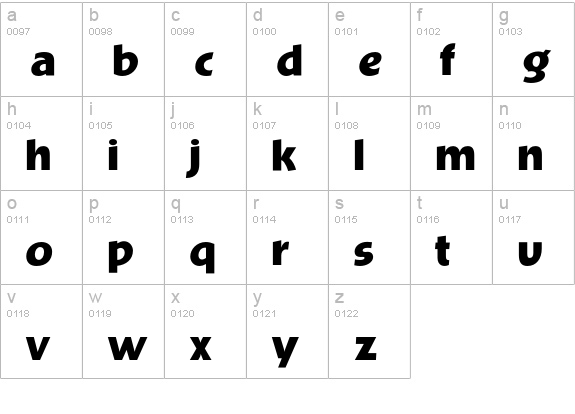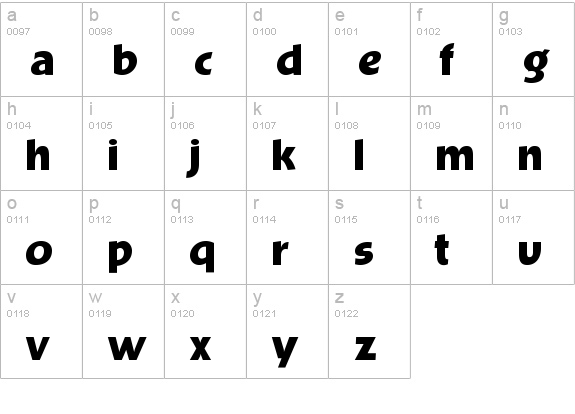
OPTIBevis-Bold Font Details
OPTIBevis-Bold is a strong, high-contrast variant in the OPTIBevis typeface family \xE2\x80\x94 well suited to headlines, attention-grabbing titles, and strong calls-to-action.
OPTIBevis-Bold is a striking and modern font that exudes confidence and style. With its bold and impactful design, this typeface is perfect for making a bold statement in your design projects. The clean lines and sharp angles of OPTIBevis-Bold give it a sleek and contemporary look that is sure to catch the eye. What sets OPTIBevis-Bold apart is that it is not only visually appealing but also versatile and easy to read. Whether you are designing a poster, logo, or website, this font will make your text stand out and command attention. The best part is that OPTIBevis-Bold is available for free download at FontsMarket.com. This means that you can elevate your designs with this stunning font without having to spend a penny. Don't miss out on the opportunity to add OPTIBevis-Bold to your font library and take your designs to the next level.